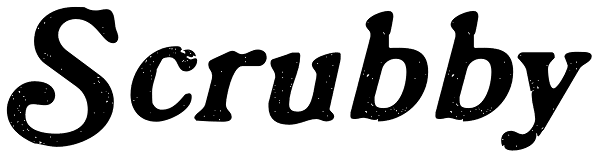
Scrubby
The 1970s: an age of wonder, optimism and Bookman Italic. Scrubby's gratuitous swashes appear automatically in OpenType savvy applications. You can turn off swashes by disabling the OpenType standard ligatures feature or force them to appear using...